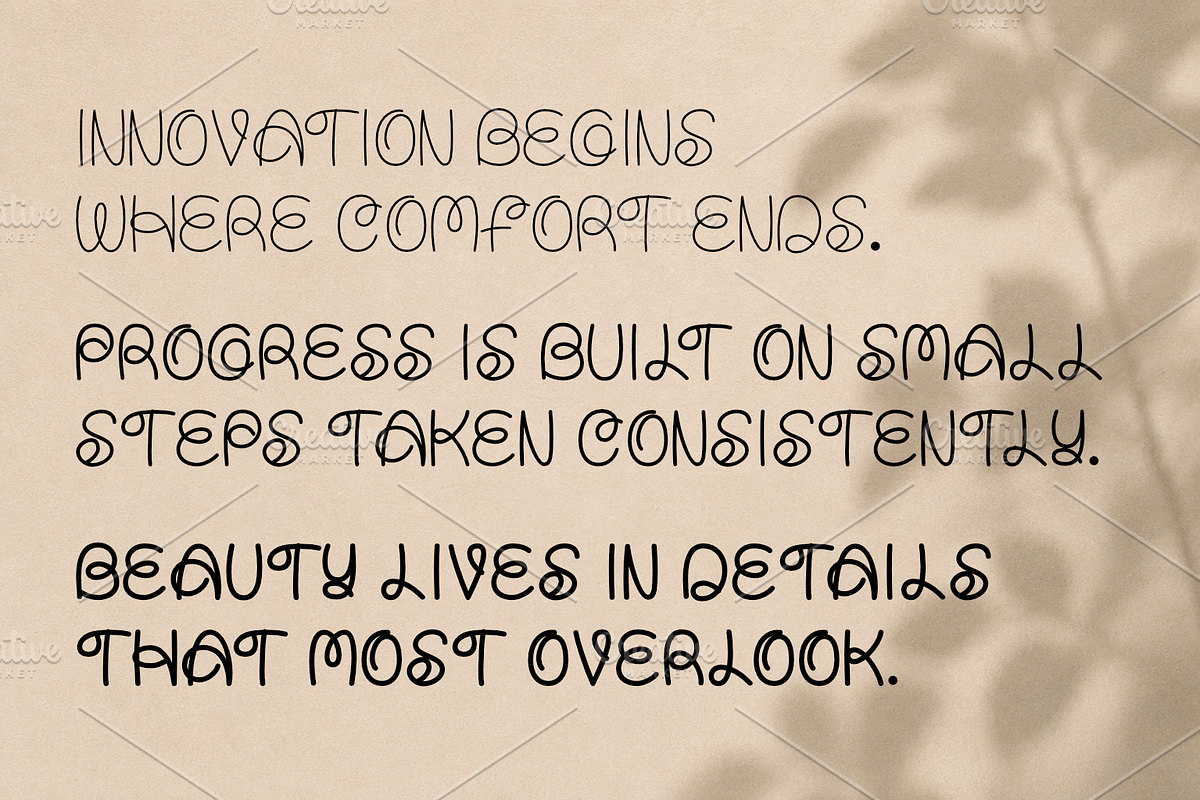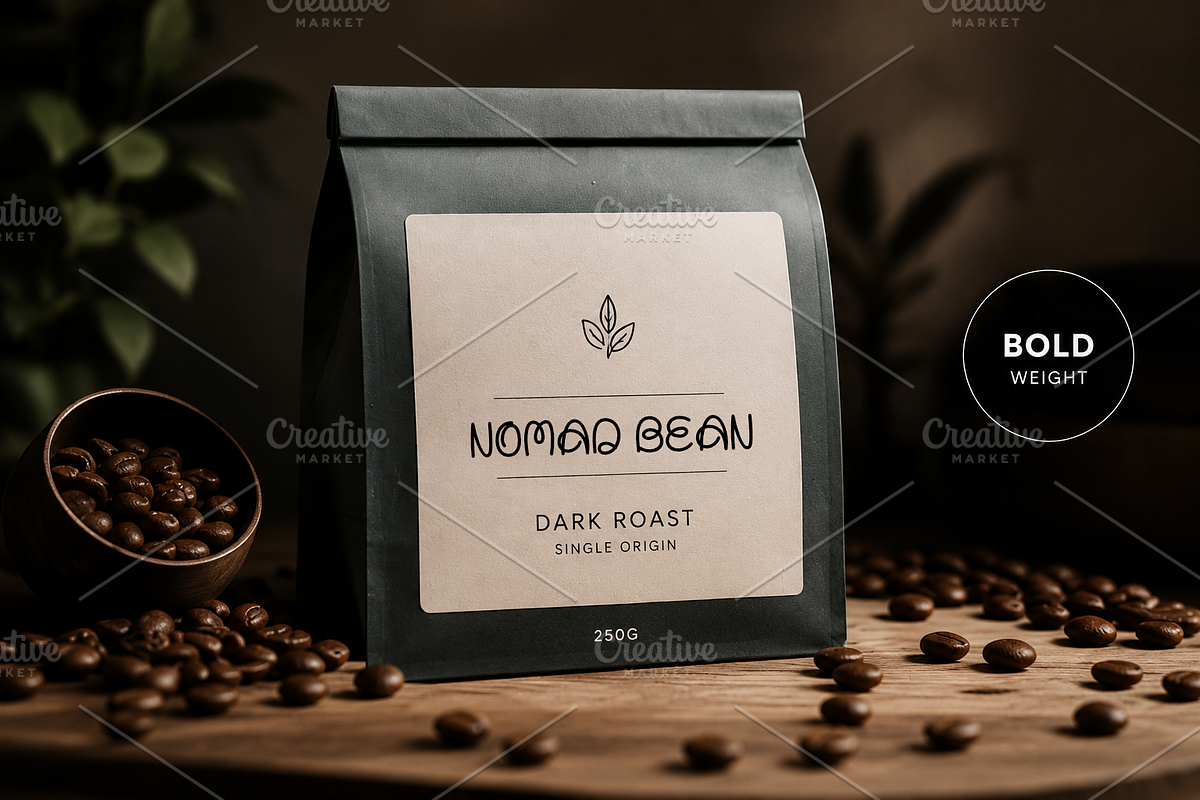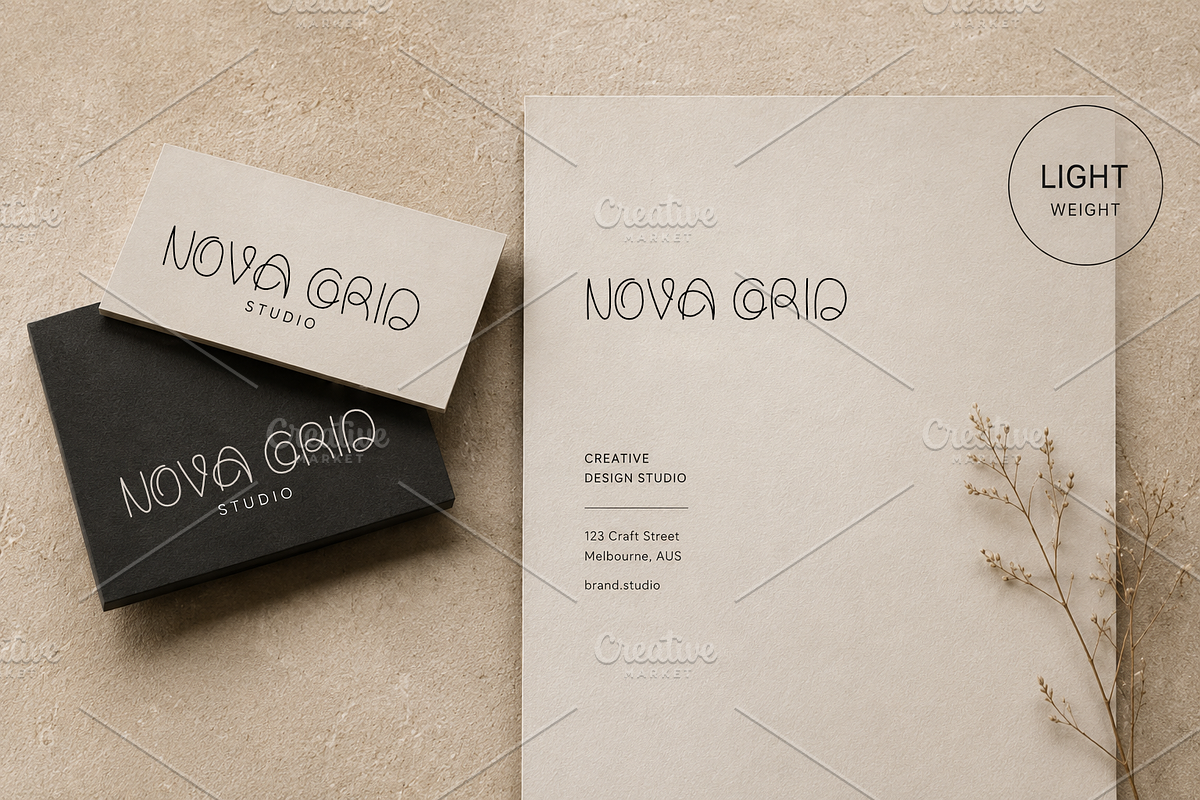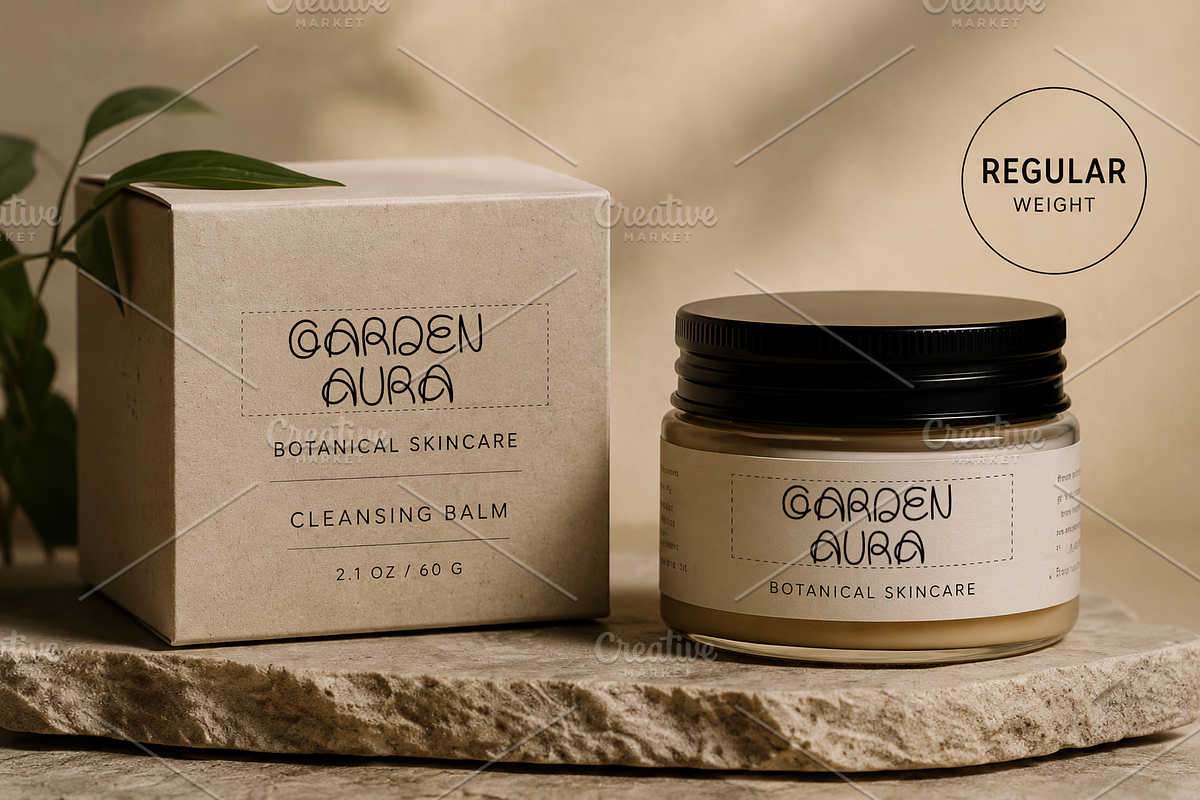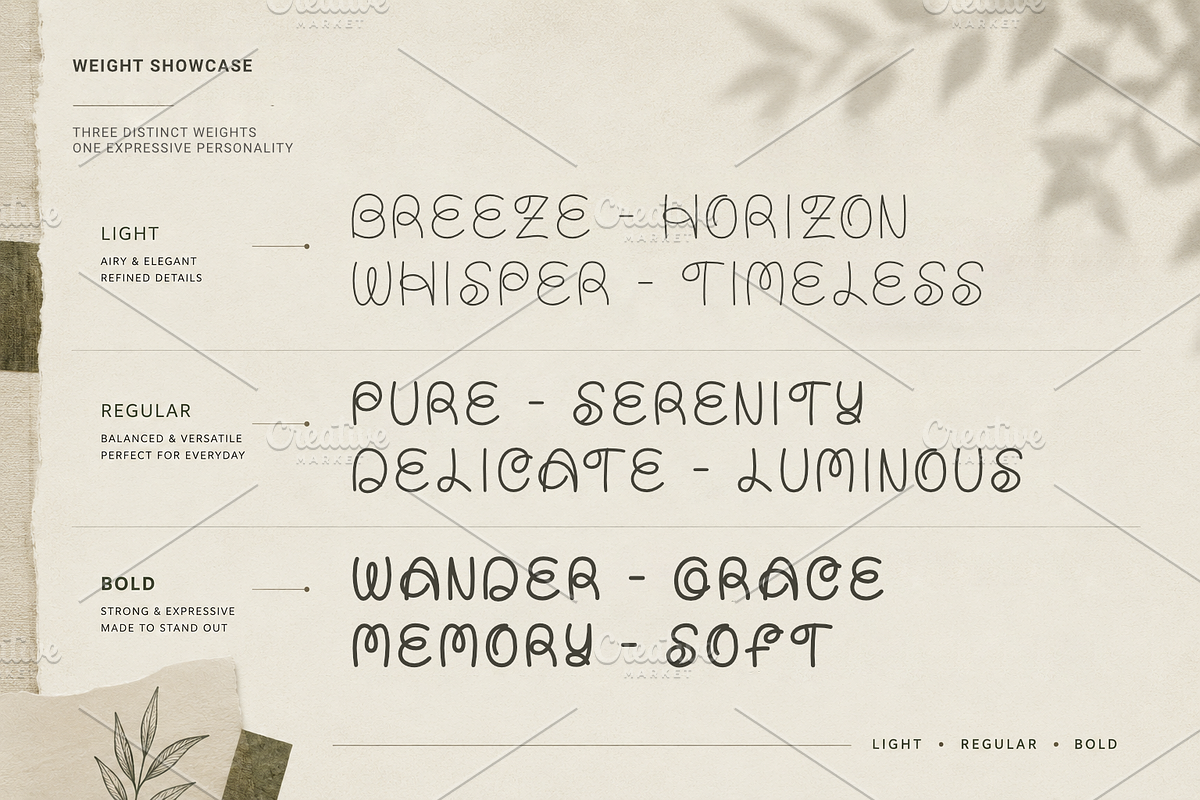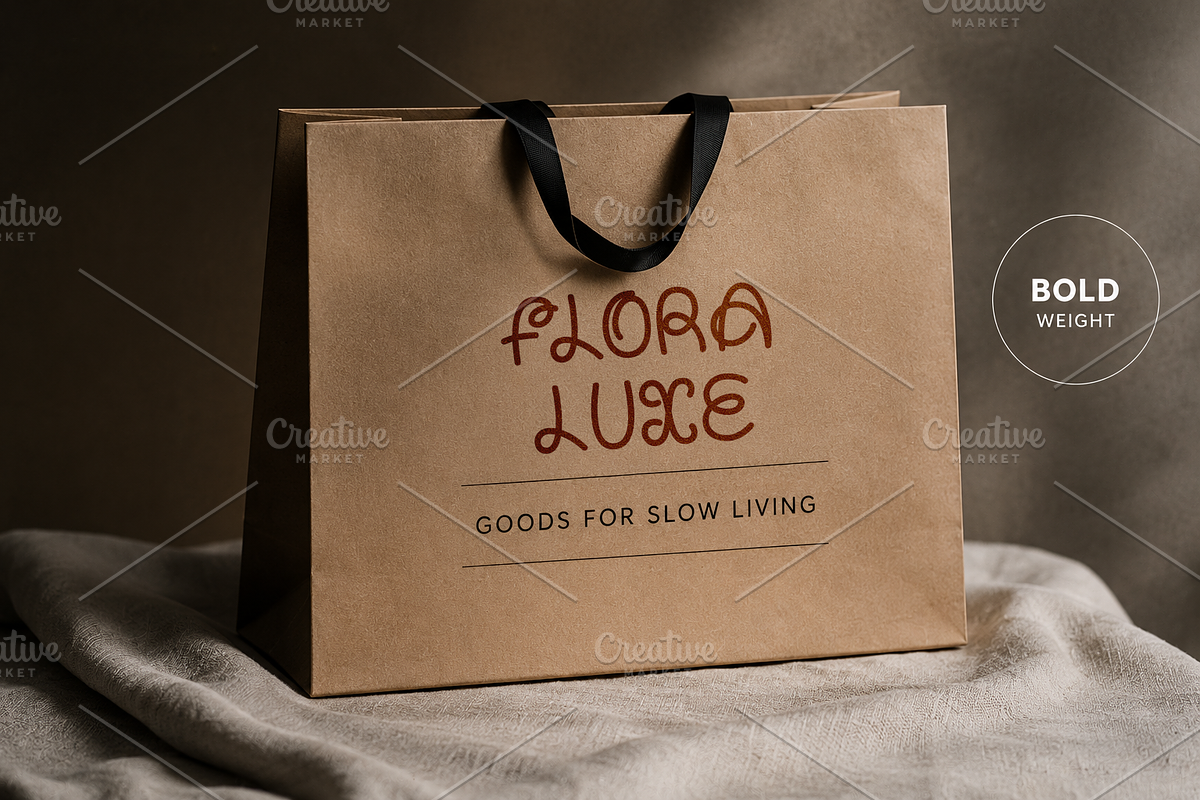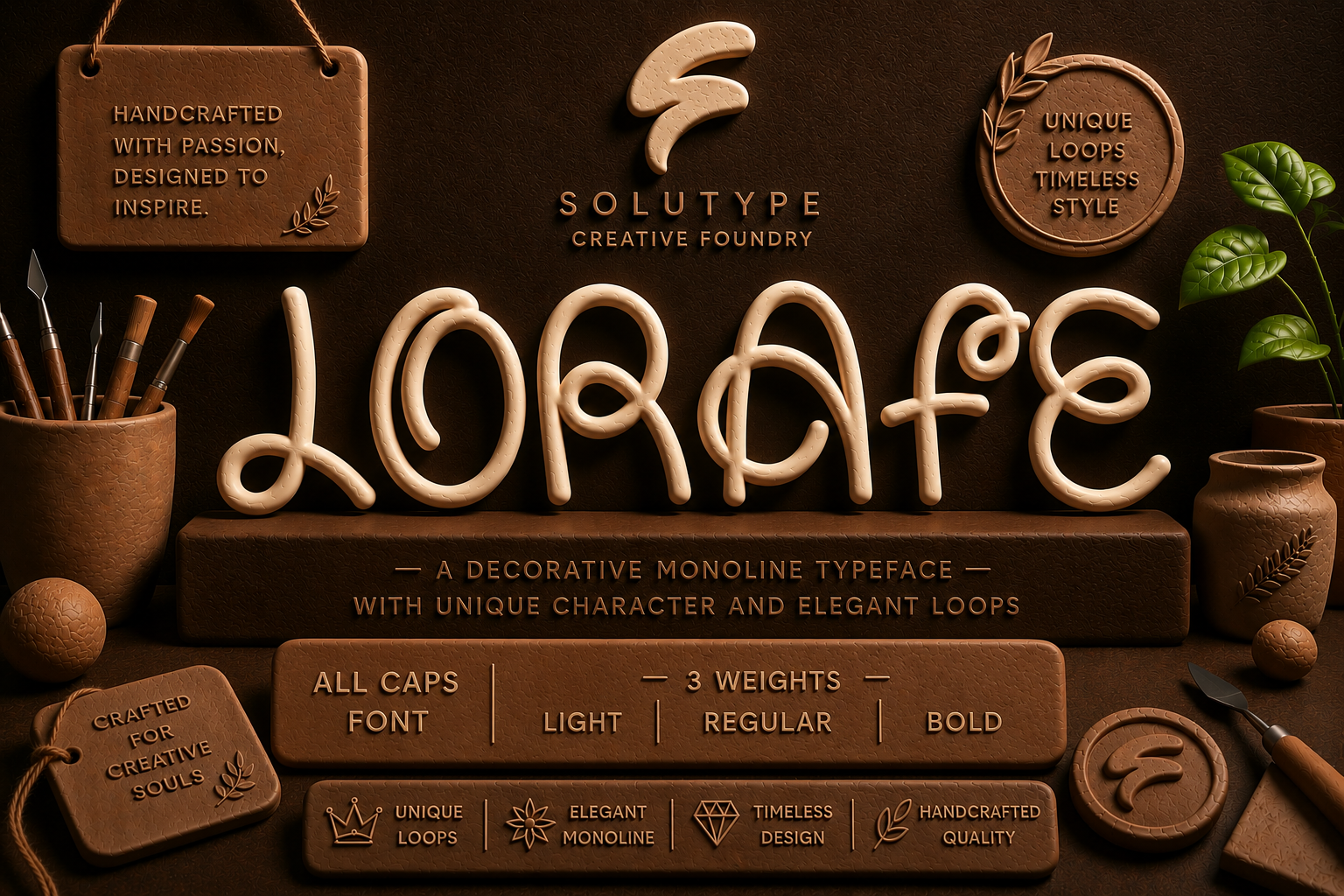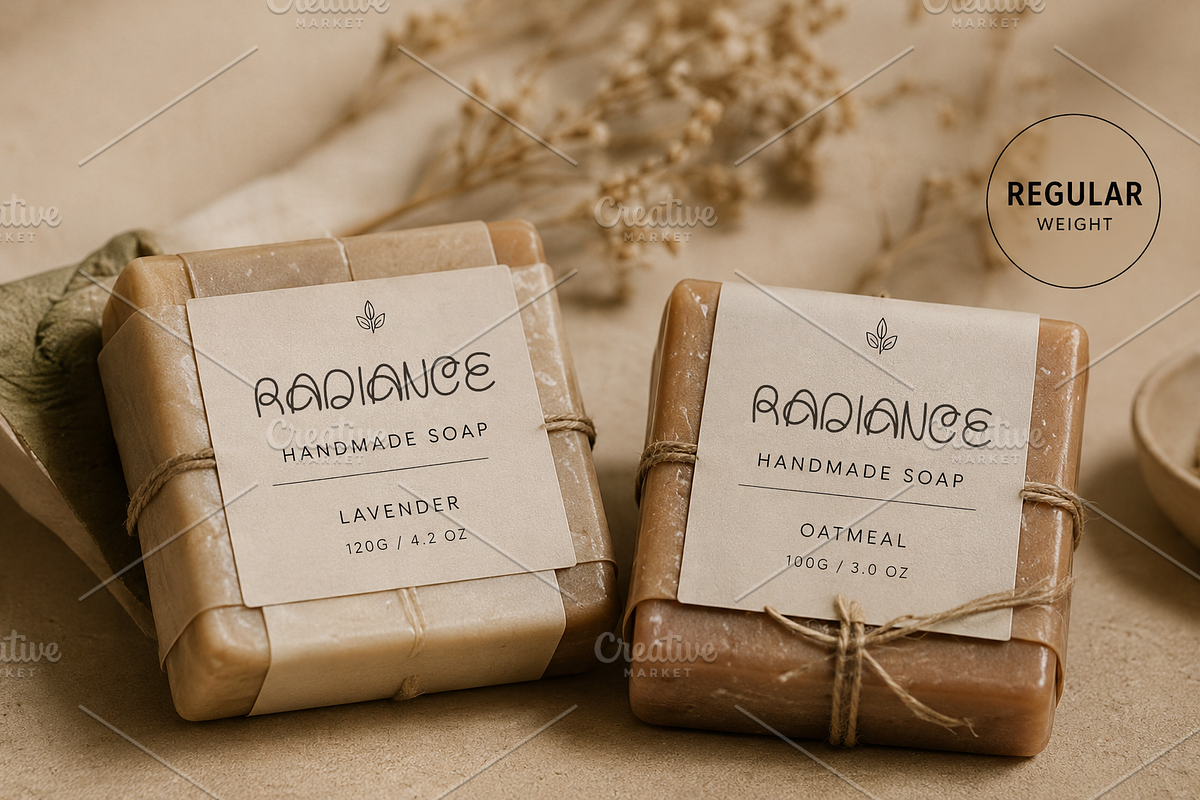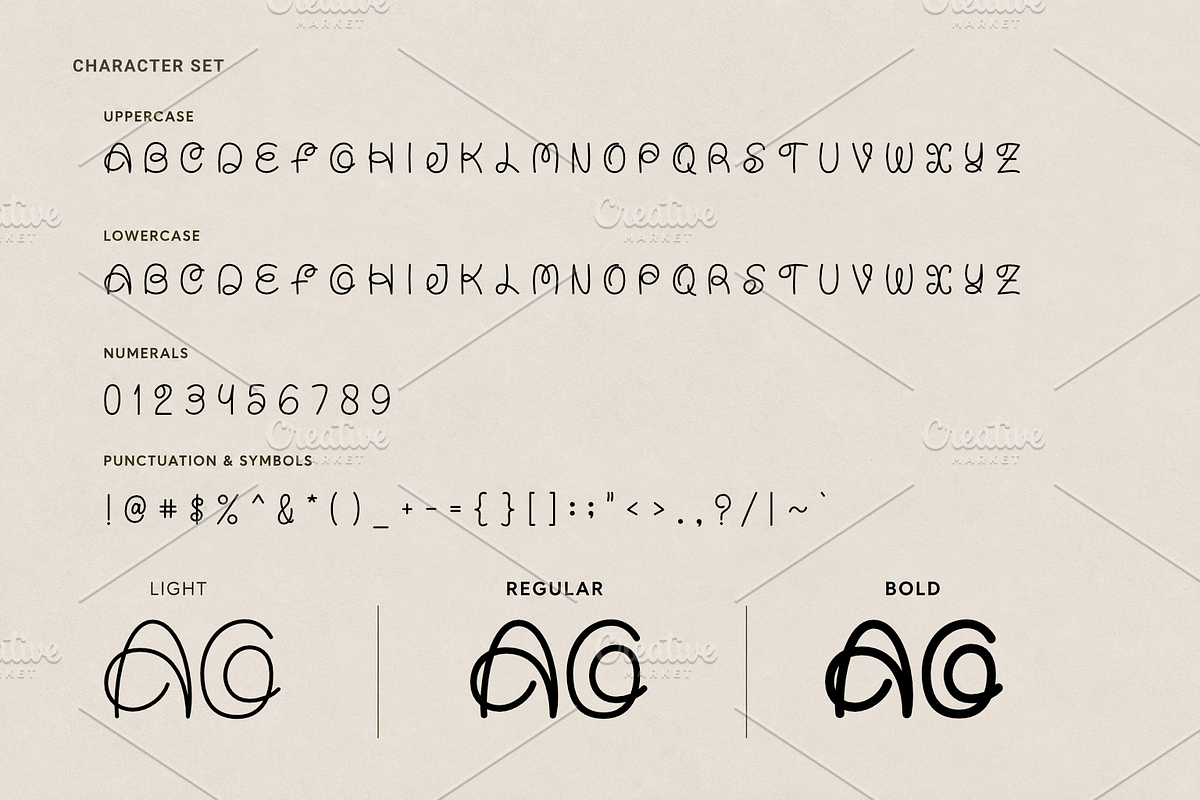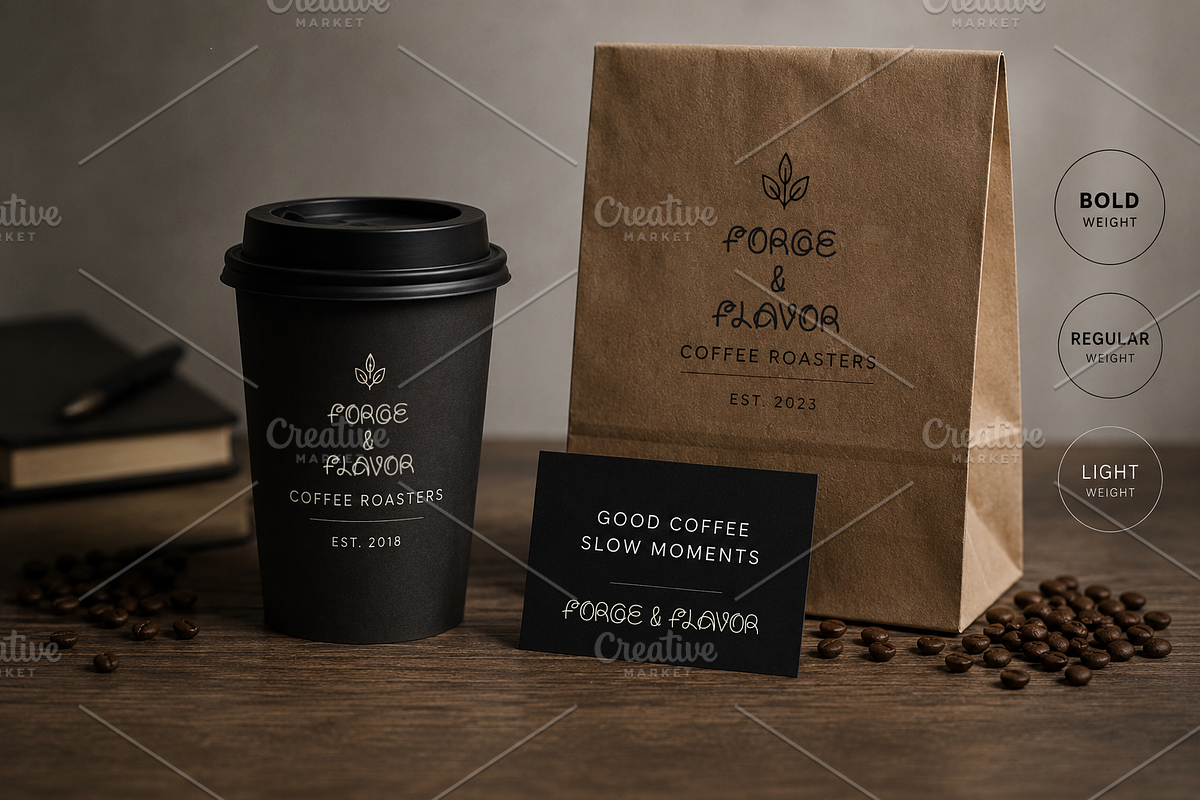
Lorafe – Multiweight Decorative Font
LORAFE is a handcrafted display font family that blends playful character with refined simplicity. Designed with smooth monoline strokes, rounded forms, and natural handwritten movement, it delivers an authentic and approachable aesthetic while maintaining a clean, contemporary feel.
Featuring three carefully crafted weights — Light, Regular, and Bold — LORAFE offers the flexibility to create elegant typography systems ranging from delicate editorial layouts to confident branding applications. The distinctive letterforms and organic flow bring warmth, personality, and creativity to every project.
Whether you’re designing boutique packaging, lifestyle branding, stationery, social media graphics, café identities, product labels, or creative editorials, LORAFE adds a unique handcrafted touch that feels modern, fresh, and effortlessly memorable.
LORAFE Light
LORAFE Regular
LORAFE Bold
Clean Kerning & Spacing
LORAFE is created for designers who want typography that feels natural, expressive, and full of personality while remaining highly versatile across modern branding and creative projects.